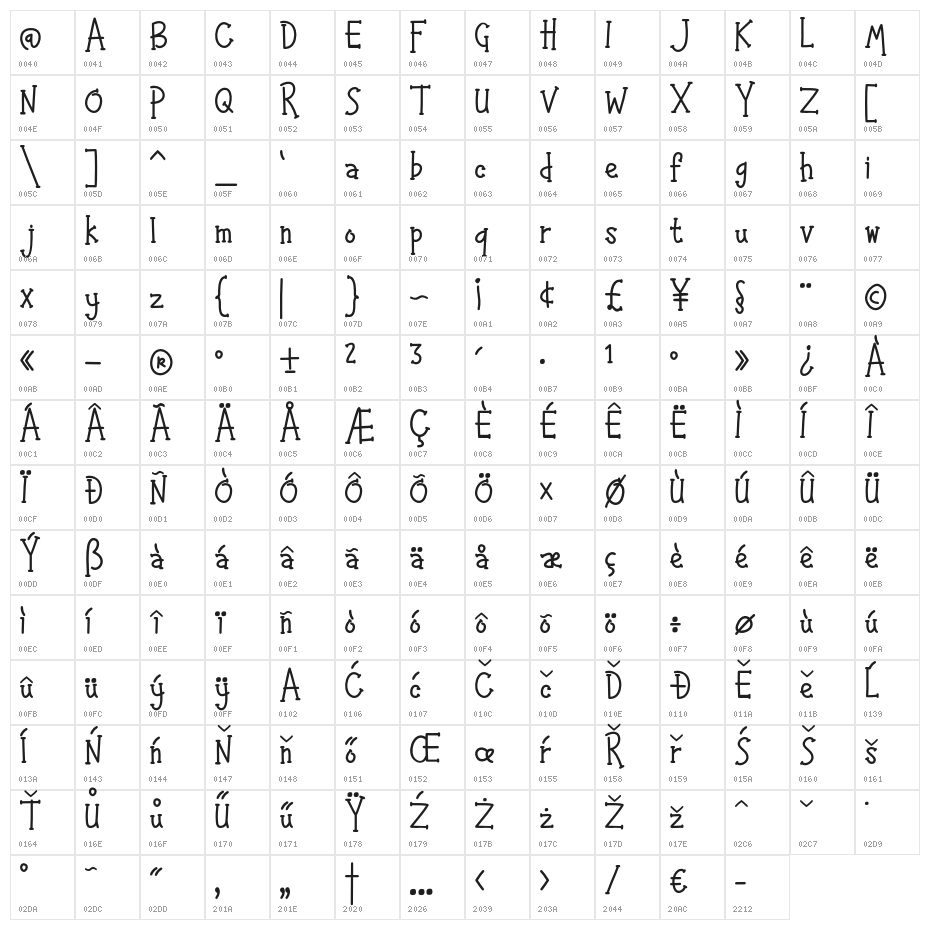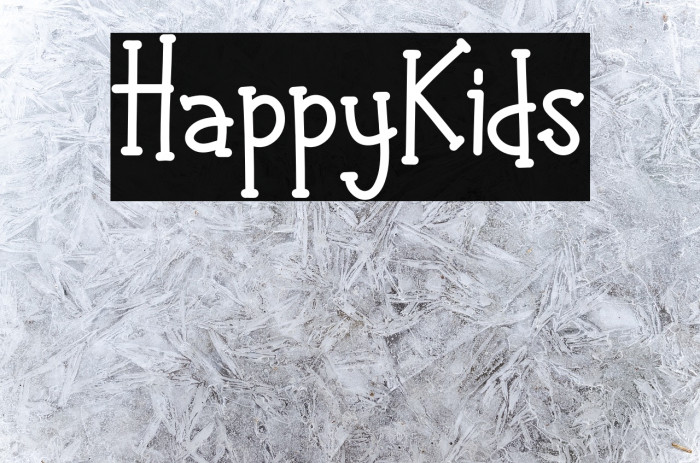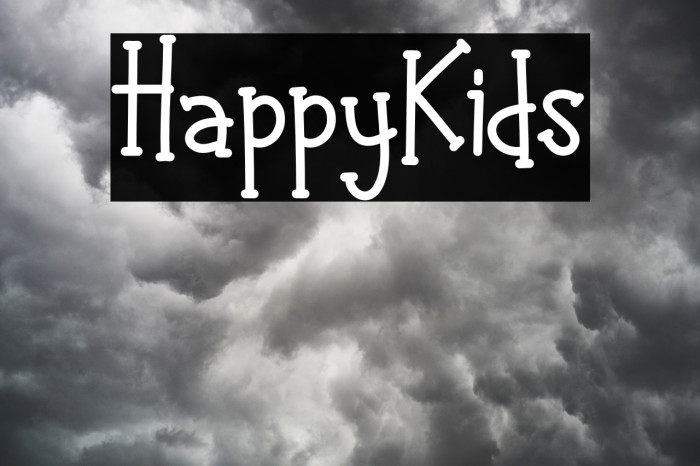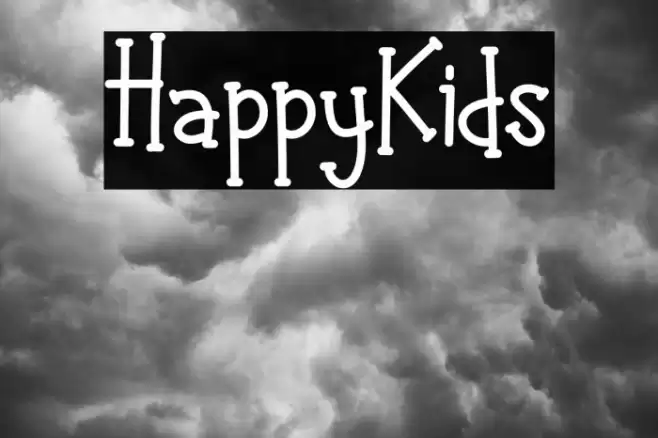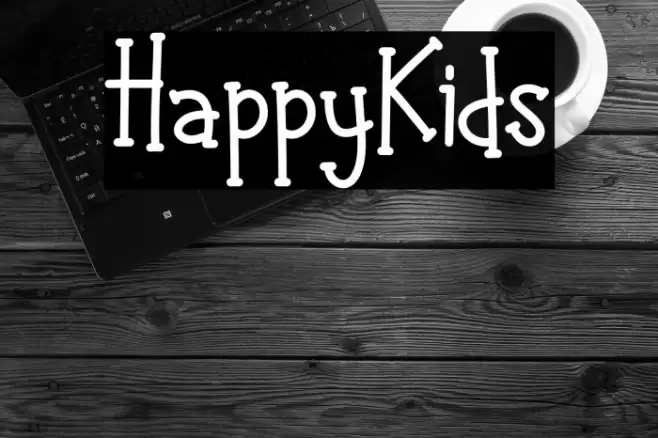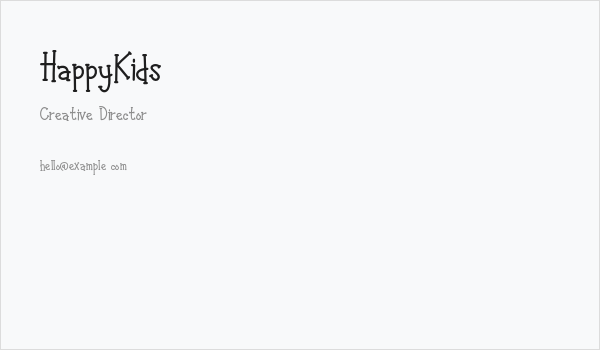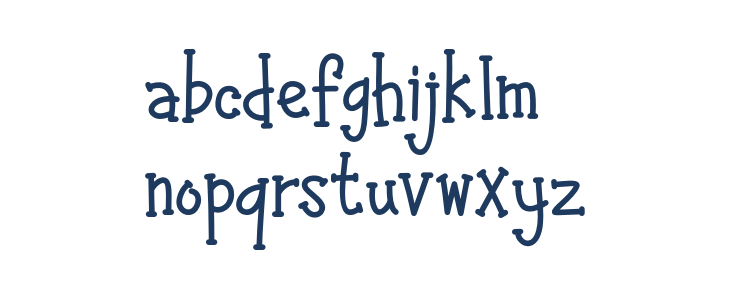
HappyKids Font
HappyKids Description
This playful and whimsical font features a hand-drawn style with irregular, slightly wavy lines that give it a fun and informal appearance. The characters are tall and narrow, with rounded edges and a slight tilt, adding to its casual and friendly vibe. The uppercase letters are bold and prominent, while the lowercase letters maintain a consistent style with a slightly smaller size. The numerals and special characters are crafted to match the overall playful aesthetic, making it ideal for projects aimed at children or those seeking a lighthearted touch.
| Proposed Projects | Ideal for children's books, educational materials, playful branding, and invitations. |